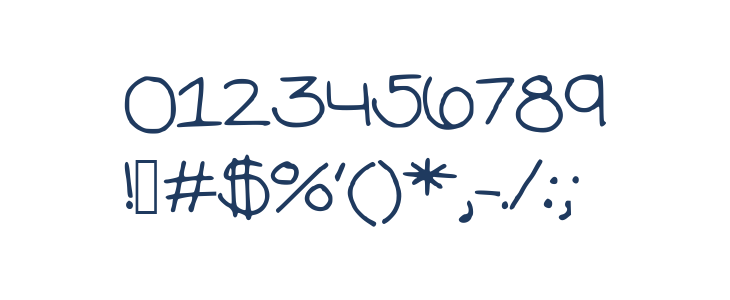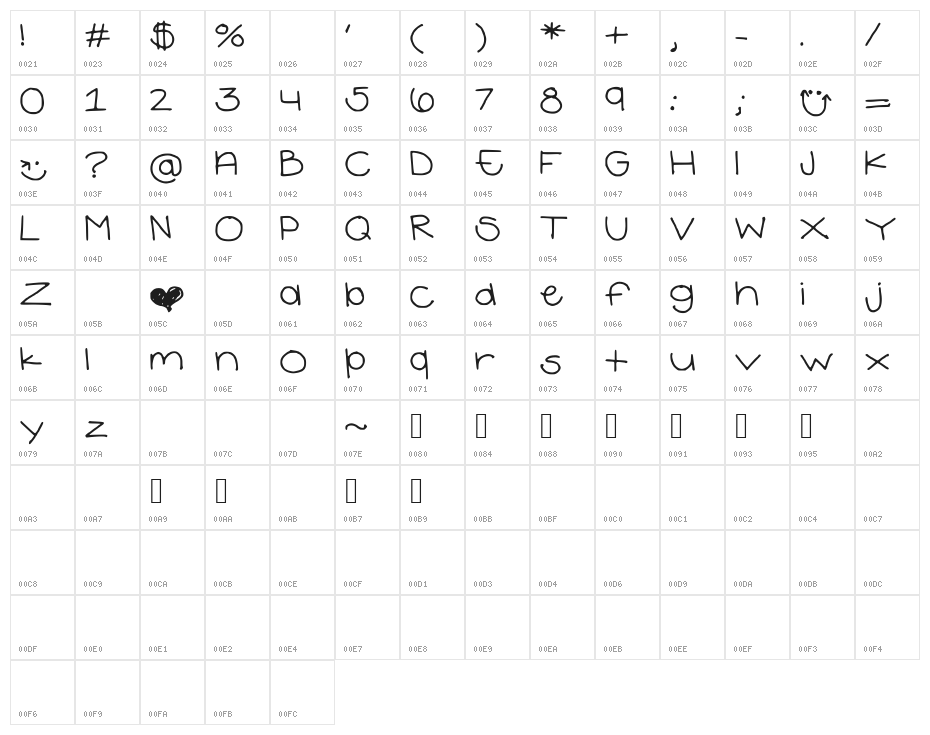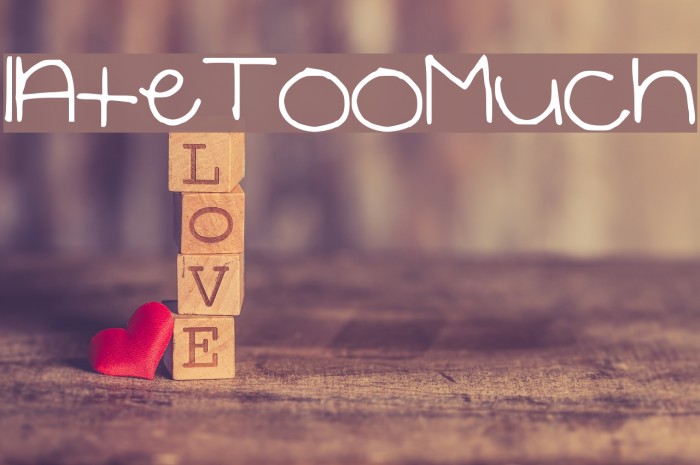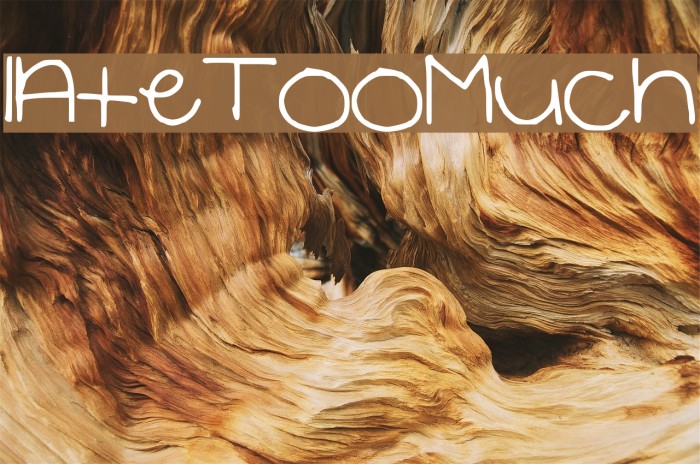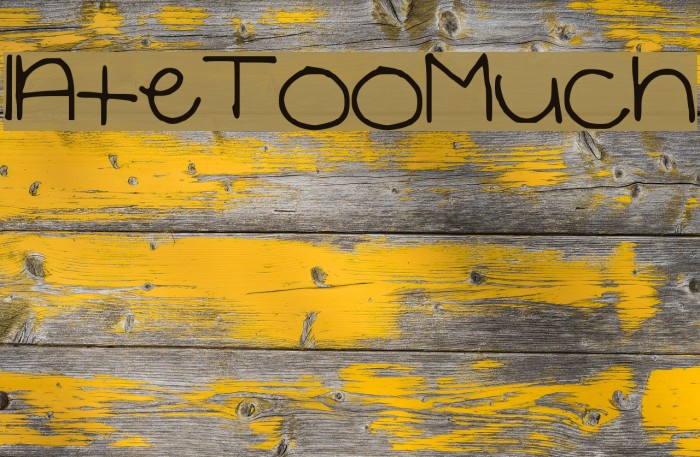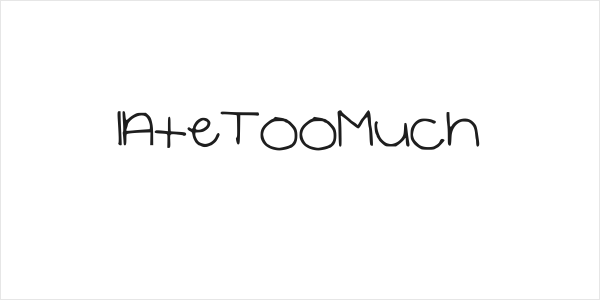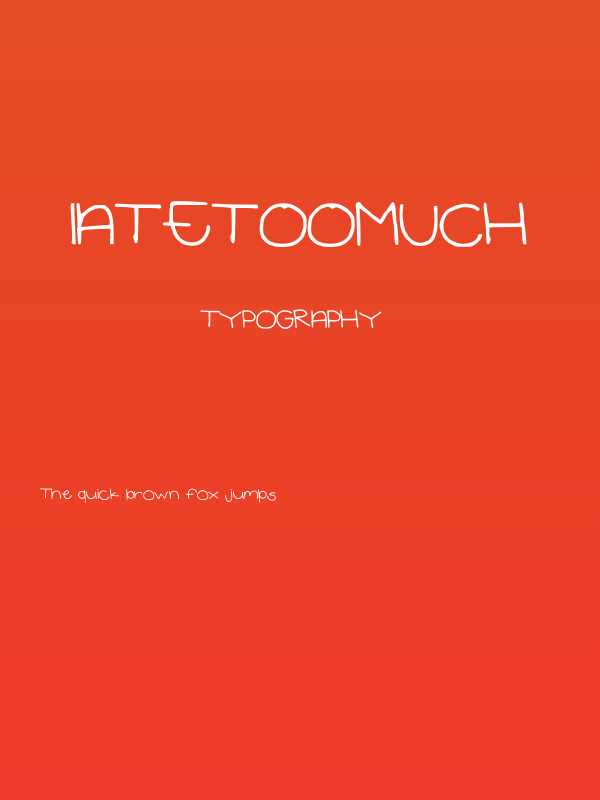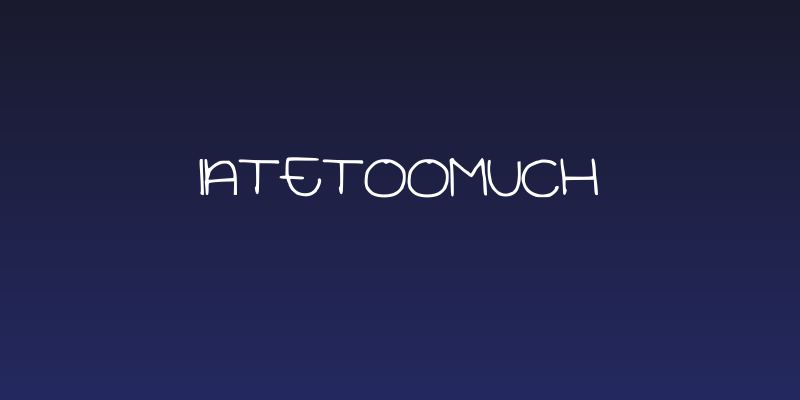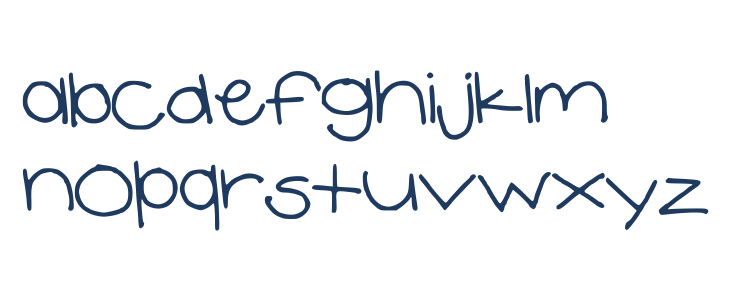
IAteTooMuch Font
IAteTooMuch Description
This playful and whimsical font features a handwritten style with rounded, smooth edges and a casual, friendly appearance. The characters are slightly irregular, adding to the charm and informal feel. The uppercase and lowercase letters maintain a consistent height, while the numerals and special characters are designed to complement the overall aesthetic. The font's simplicity and readability make it suitable for a variety of creative projects, offering a personal touch that is both approachable and engaging.
| Overall Style | Casual |
| Use Case | Headlines, Informal text, Creative projects |
| Proposed Projects | Ideal for children's books, greeting cards, personal blogs, and playful branding. |